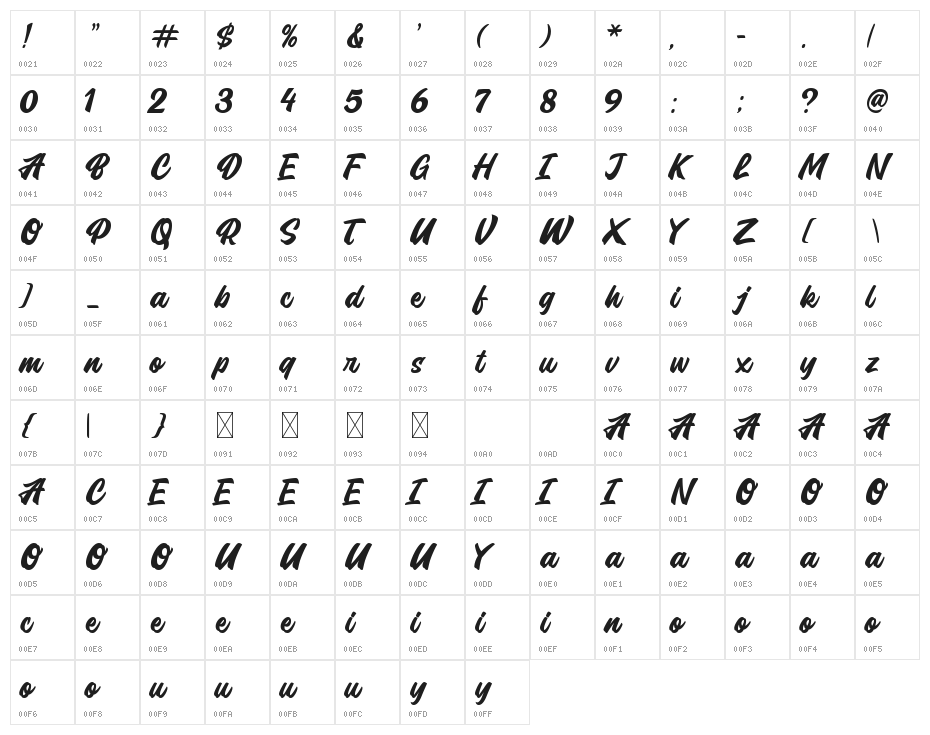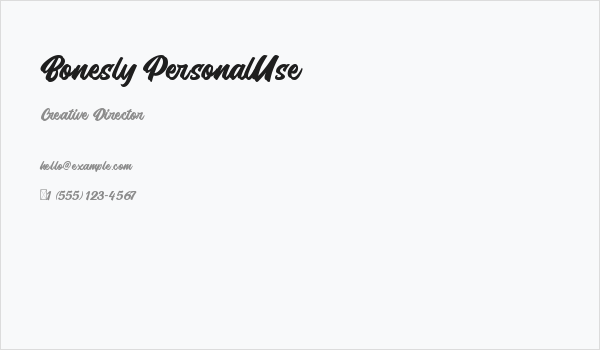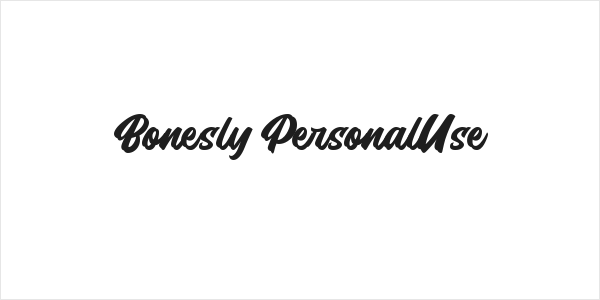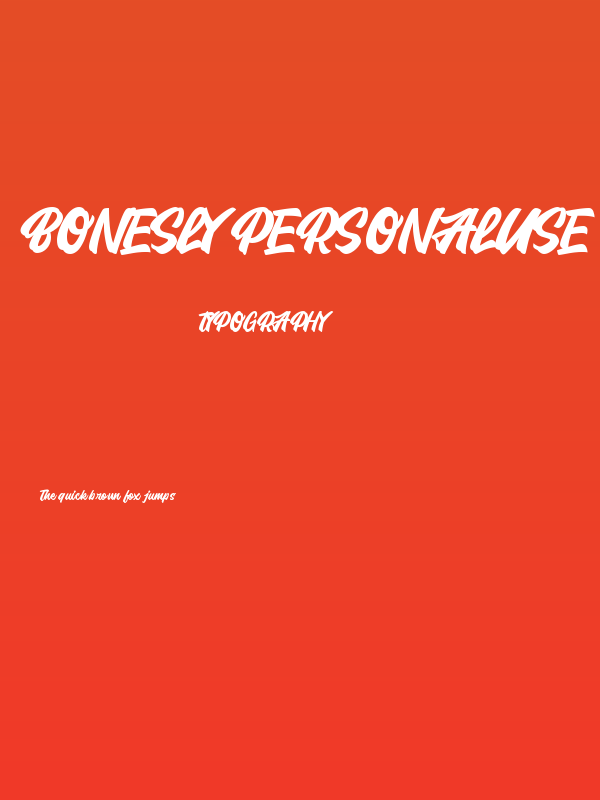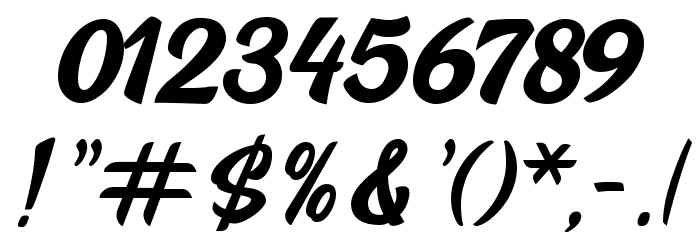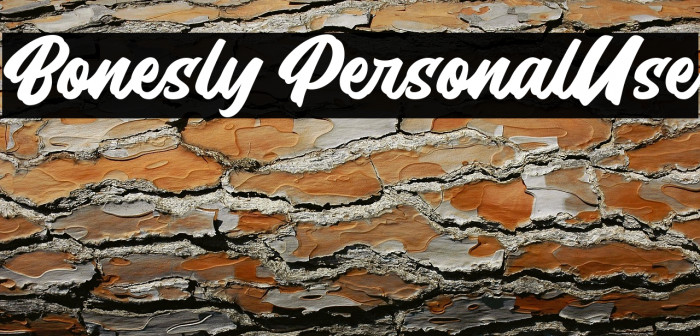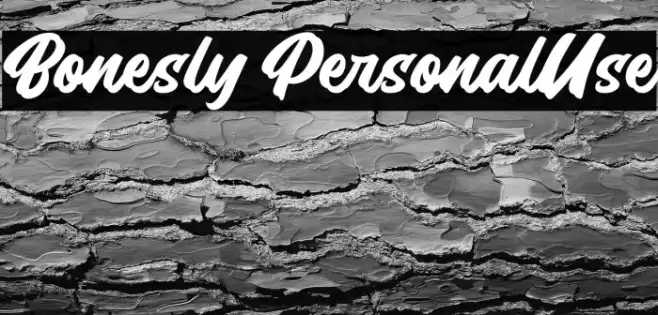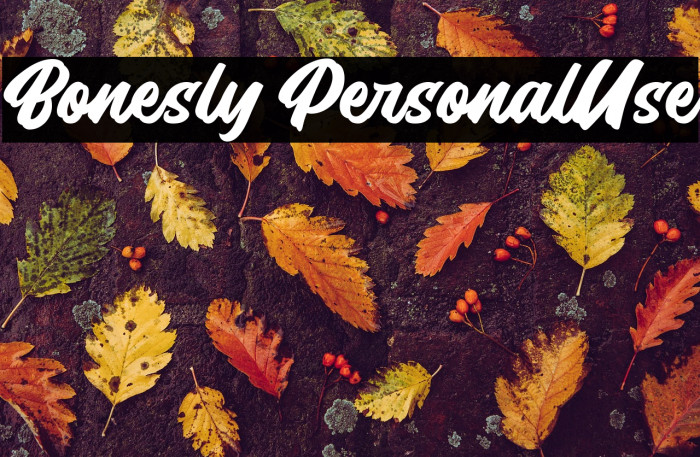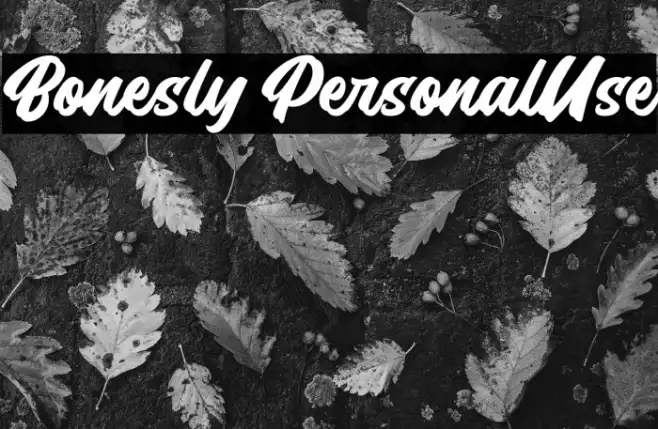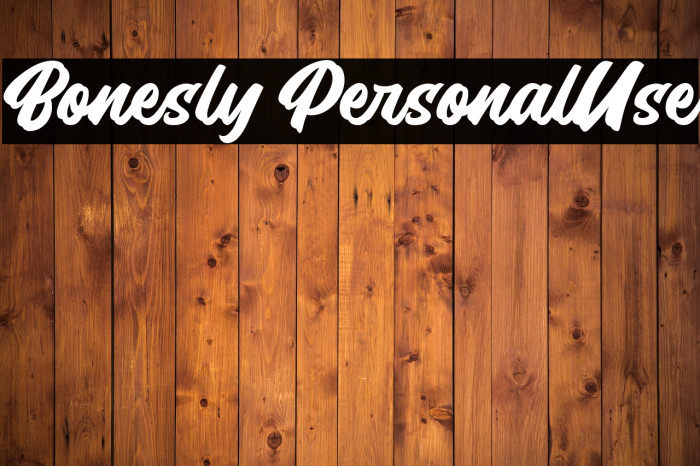
Bonesly PersonalUse Font
Bonesly PersonalUse Description
This font features a bold and dynamic script style, characterized by its flowing, cursive letterforms that convey a sense of energy and movement. The strokes are thick and consistent, giving the font a strong presence. The uppercase letters are particularly striking, with exaggerated flourishes and a slightly slanted orientation that adds to the overall sense of motion. The lowercase letters maintain the same lively aesthetic, with smooth connections between characters. Numbers and special characters are designed to match the boldness and style of the alphabet, ensuring a cohesive look across all text. This font is ideal for projects that require a touch of flair and personality.
| Proposed Projects | Ideal for branding, logos, posters, and invitations where a lively and energetic script is desired. |